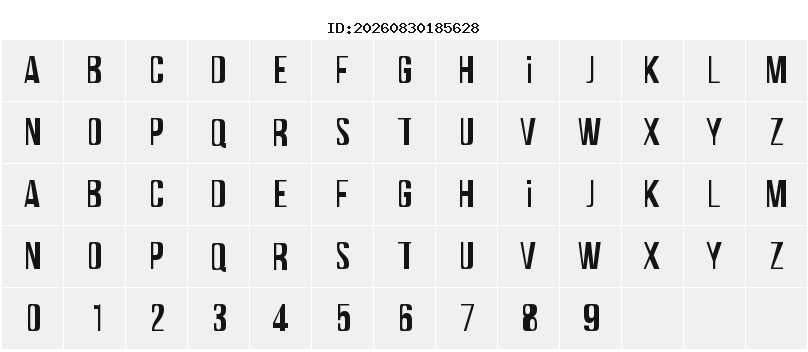
Termica Preview
• Font Name: Termica
• Full Font Name: Termica
• Version: Version 1.00 June 19, 2014, initial release
About Termica.ttf
Termica.ttf is a modern, elegant sans-serif font designed for ultimate readability and visual harmony. Perfect for branding, headlines, web design, and print materials.